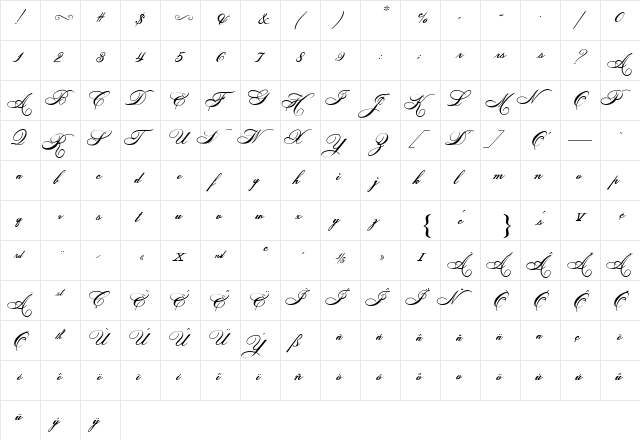
Helena Script ES Regular Font Preview
Helena Script ES Regular
Design Context for Helena Script ES Typeface
Helena Script ES flows with the natural rhythm of handwritten lettering, making it ideal for designs that call for warmth and personal expression.
Font Pairing: Combine Helena Script ES with a simple geometric sans for maximum contrast — the tension between flowing curves and clean structure is a classic typographic pairing.
Pro Tip: Use Helena Script ES for short runs of text — names, titles, or taglines. Extended body copy in script faces tires the eye quickly.